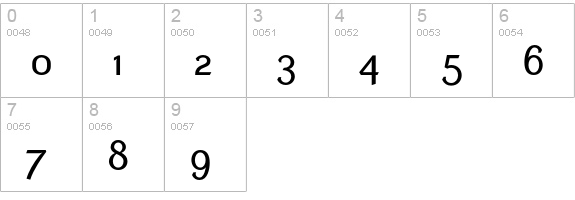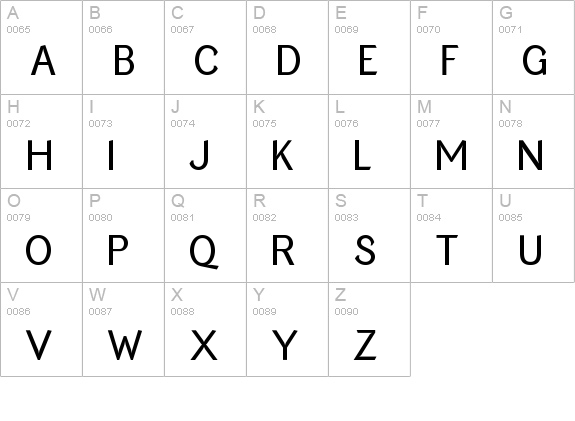
EquipoizeSans-Regular Font Details
EquipoizeSans-Regular is the standard, neutral variant in the EquipoizeSans typeface family \xE2\x80\x94 well suited to general body text, paragraphs, and standard typographic work.
EquipoizeSans-Regular is a versatile and modern font that strikes the perfect balance between professionalism and creativity. With its clean lines and sleek appearance, this sans-serif typeface exudes a sense of elegance and sophistication. It is ideal for a wide range of design projects, from branding to editorial layouts. What sets EquipoizeSans-Regular apart is its ability to convey a sense of balance and harmony in any design application. Whether used for headlines, body text, or captions, this font delivers a clean and polished look that effortlessly captures the attention of the audience. To top it all off, EquipoizeSans-Regular is completely free to download at FontsMarket.com. This means that you can access this high-quality font without any cost, making it a valuable asset for designers, creatives, and anyone looking to elevate their projects with a touch of modern elegance. Don't miss out on the opportunity to enhance your design work with EquipoizeSans-Regular – download it today and see the difference it can make!